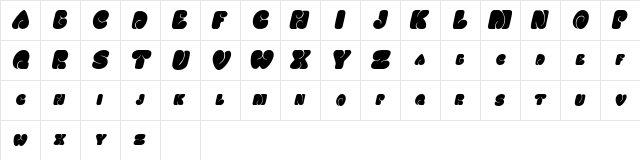
MotherhoodDisplaySCapsSSK Italic Font Preview
MotherhoodDisplaySCapsSSK Italic
Design Context for MotherhoodDisplaySCapsSSK Typeface
MotherhoodDisplaySCapsSSK brings ornamental detail and strong personality to headlines and identities, where visual impact matters more than quiet functionality. The dynamic lean of this cut emphasises speed and emphasis in any layout.
Font Pairing: Pair with a clean neutral sans-serif for body copy to let MotherhoodDisplaySCapsSSK's character lead without overwhelming the composition.
Pro Tip: Treat MotherhoodDisplaySCapsSSK as the centrepiece of your typographic hierarchy. One strong heading set in a decorative face can carry an entire layout.